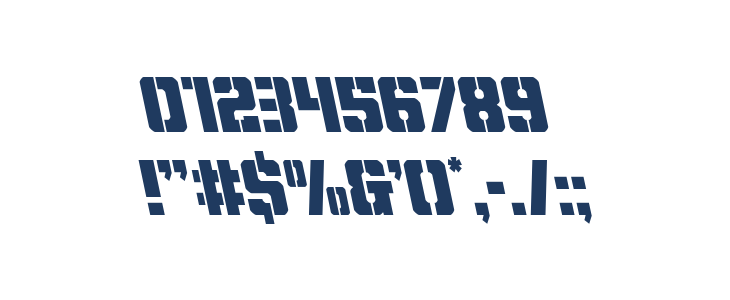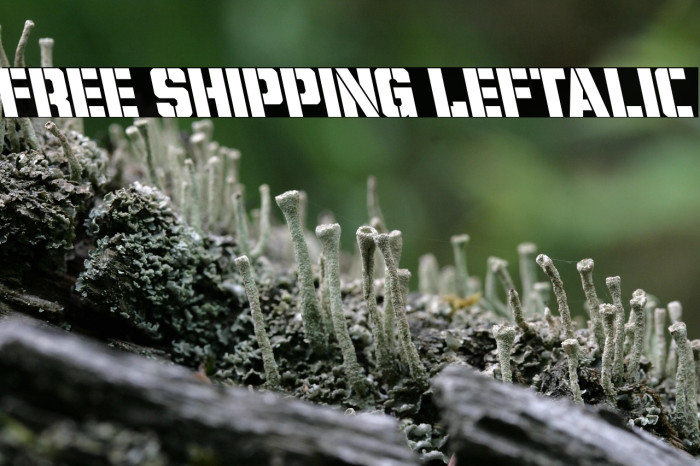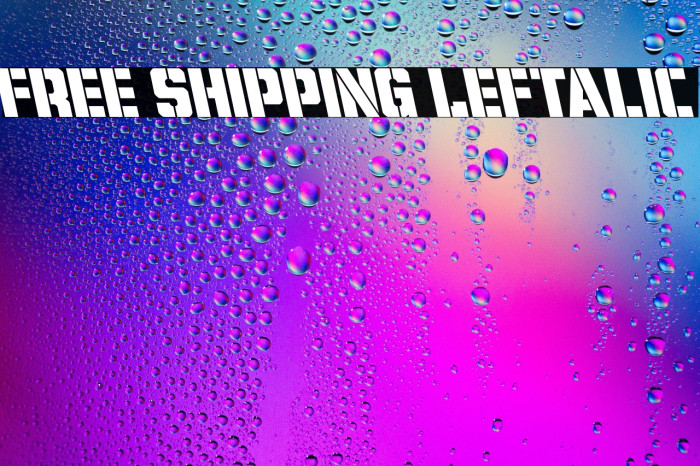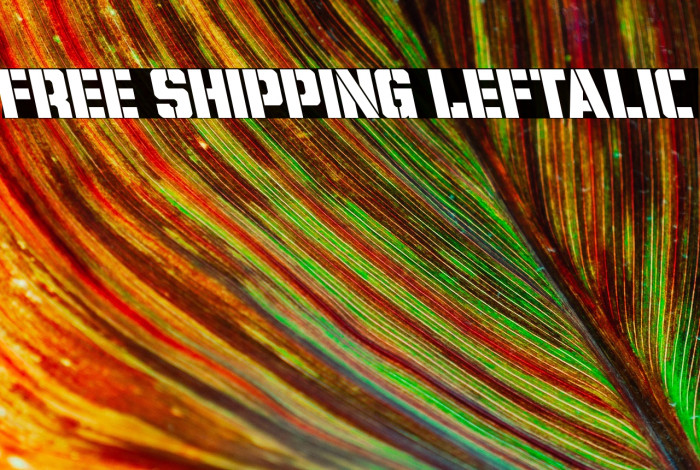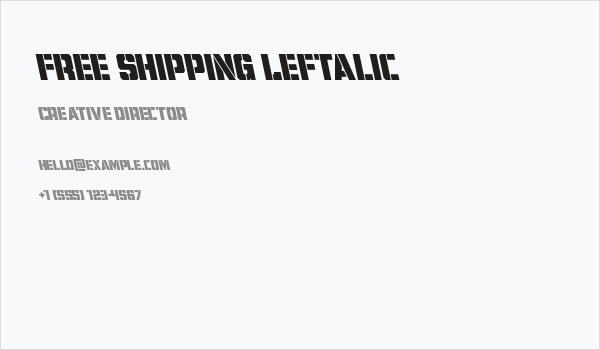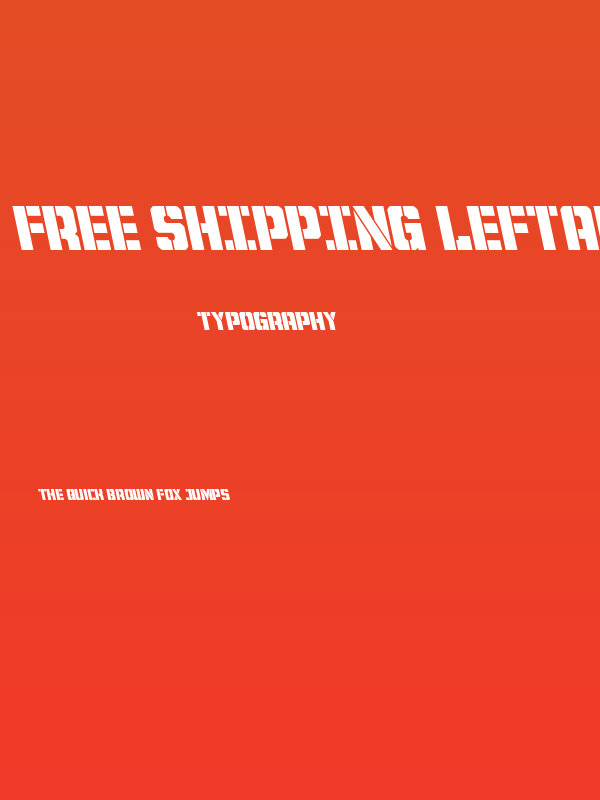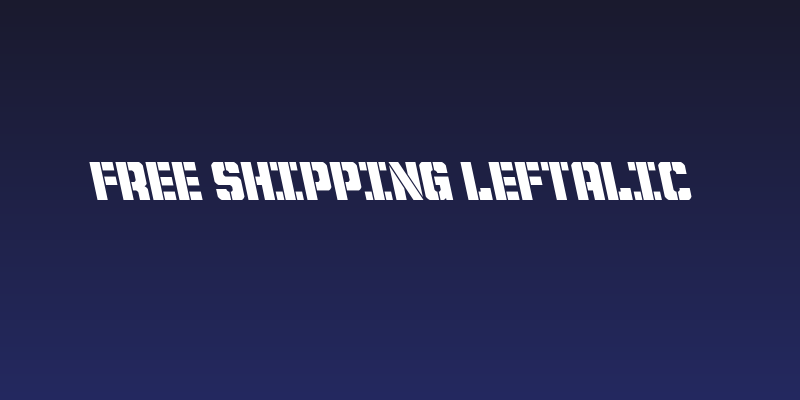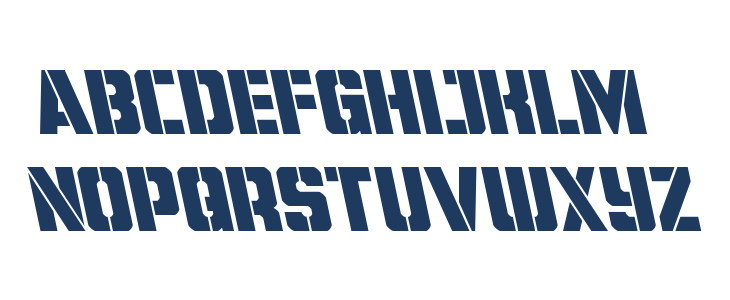
Free Shipping Leftalic Font
Free Shipping Leftalic Description
This font features a bold, geometric design with a distinct stencil-like appearance. The characters are sharply angled, giving a sense of motion and urgency. The uppercase and lowercase letters maintain a consistent style, with thick, blocky forms and minimal curves. The numbers and special characters follow the same robust design, ensuring uniformity across all glyphs. The font's strong presence makes it ideal for impactful designs where attention is key.